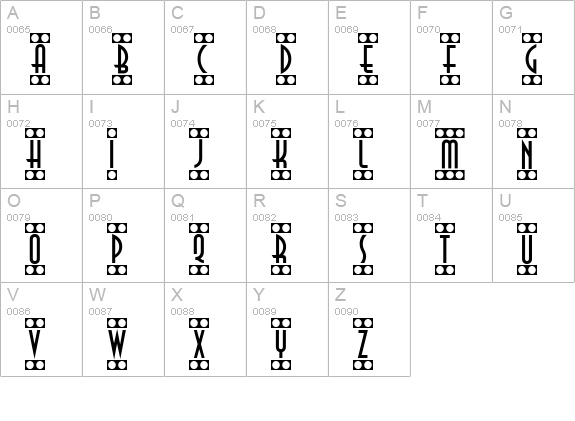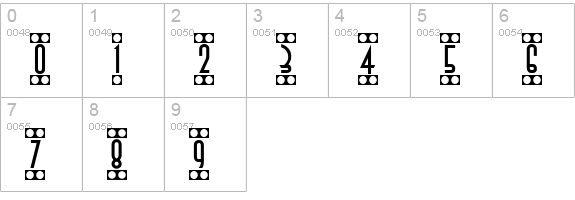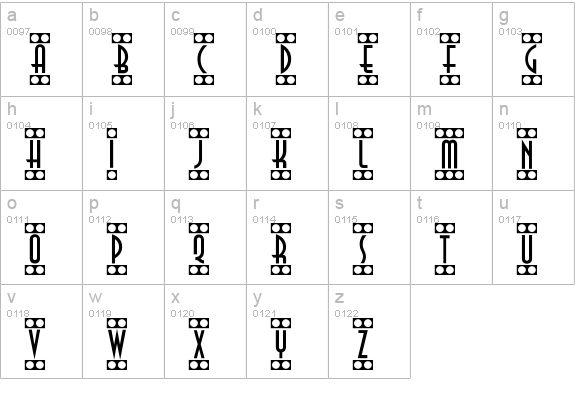
Showtime Font Details
Introducing Showtime font, a captivating typeface that will transport you to the glitz and glamour of the golden age of entertainment. With its elegant and curvaceous letterforms, Showtime exudes a sense of sophistication and charm, making it perfect for adding a touch of timeless elegance to your designs. Whether you're creating invitations for a red carpet event, designing a vintage-inspired logo, or crafting a poster for a classic movie marathon, Showtime font is sure to steal the show. Its unique blend of vintage flair and modern finesse allows it to effortlessly capture attention and evoke a sense of nostalgia. What sets Showtime font apart is not only its stunning aesthetics but also its versatility. This font seamlessly adapts to various design projects, from branding materials to editorial layouts, and everything in between. Its legibility remains intact, ensuring a seamless reading experience across different mediums. One of the most exciting features of Showtime font is that it is freely available to download at FontsMarket.com. This means that you can bring a touch of old Hollywood glamour to your designs without breaking the bank. Whether you're a professional designer or a hobbyist, Showtime font offers you the opportunity to add a touch of elegance to your creations without any cost. So, why wait? Step into the spotlight and let Showtime font be the star of your design projects. Download it for free at FontsMarket.com and let its captivating charm take center stage in your next creative endeavor.